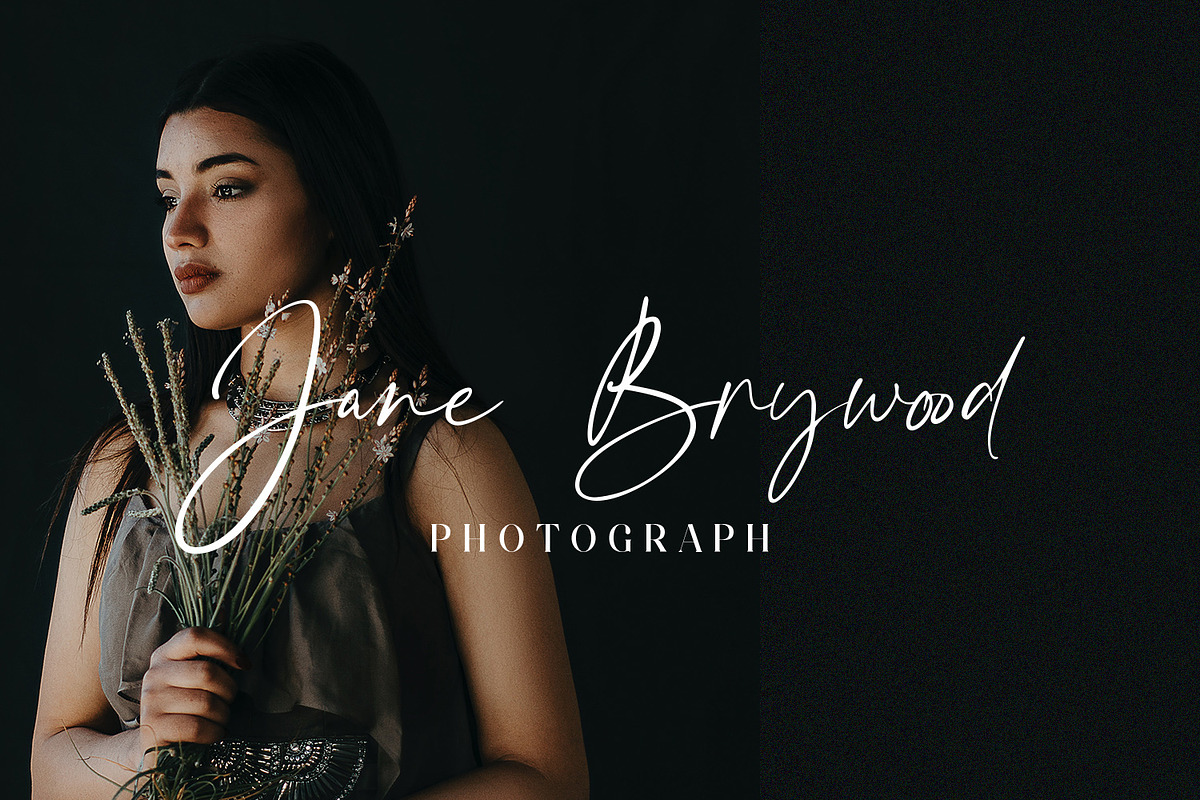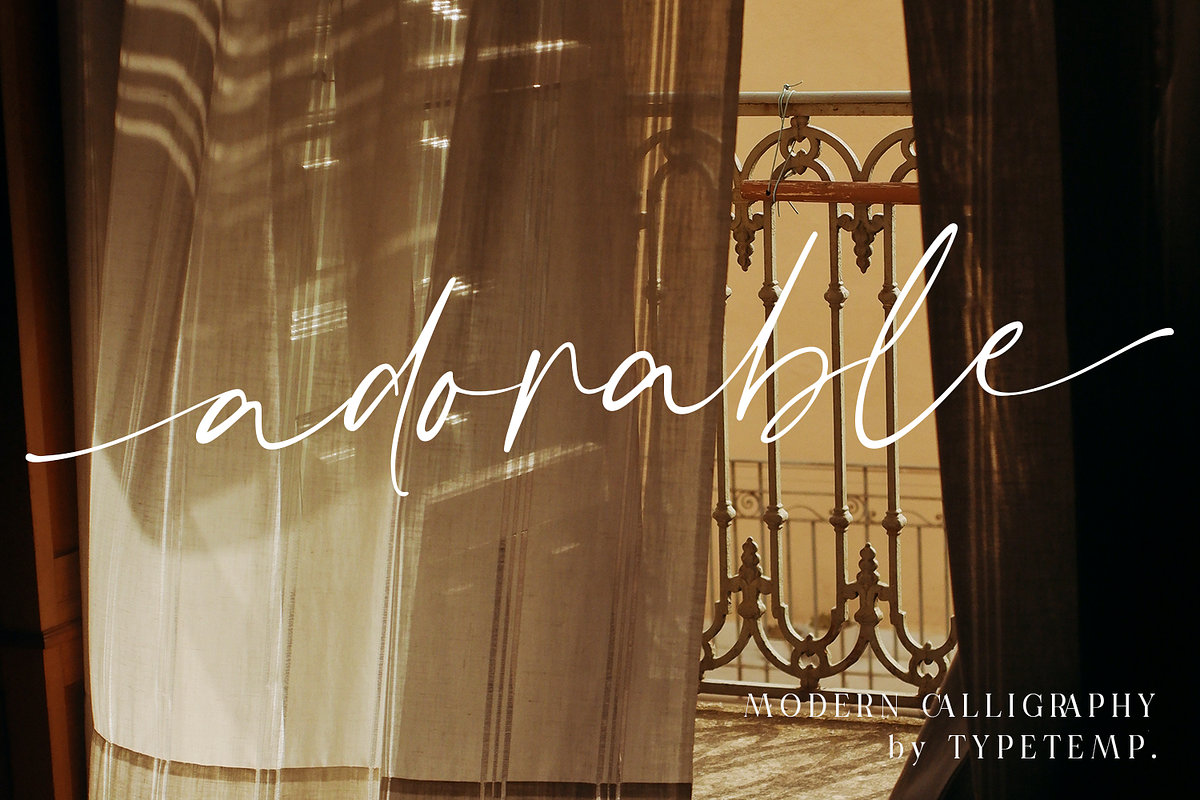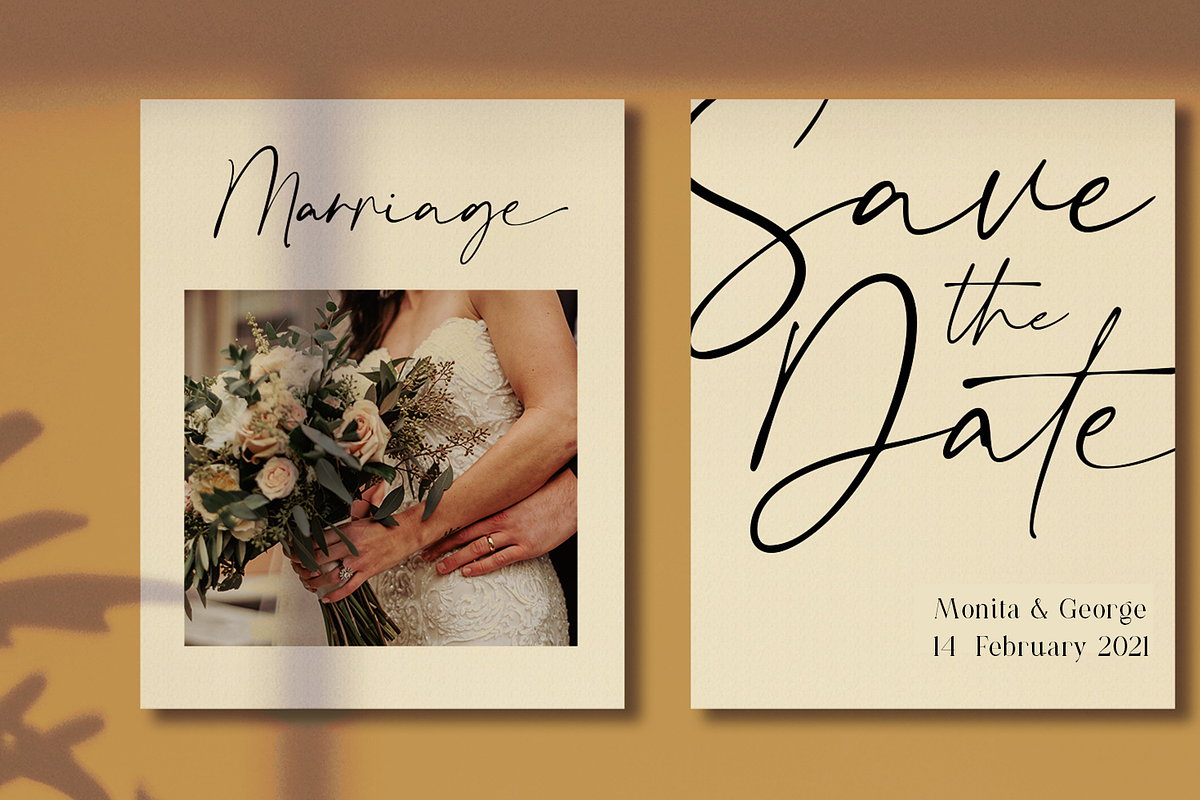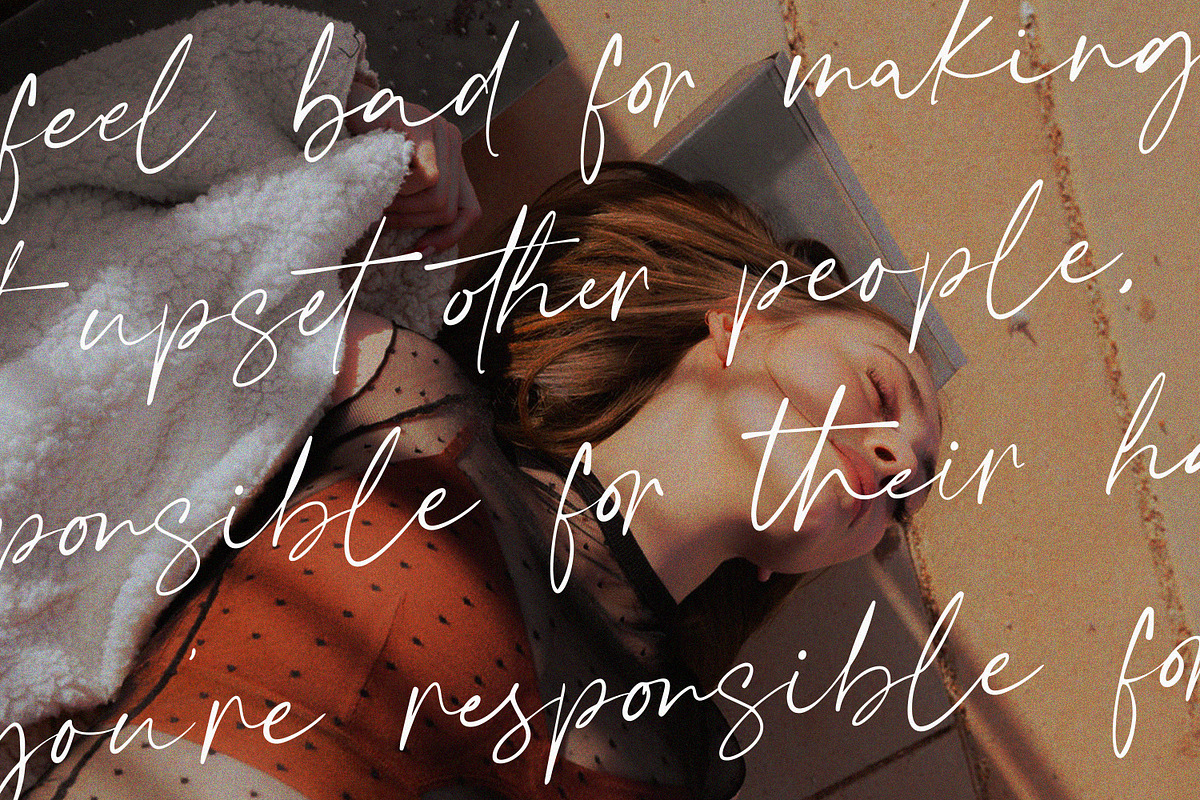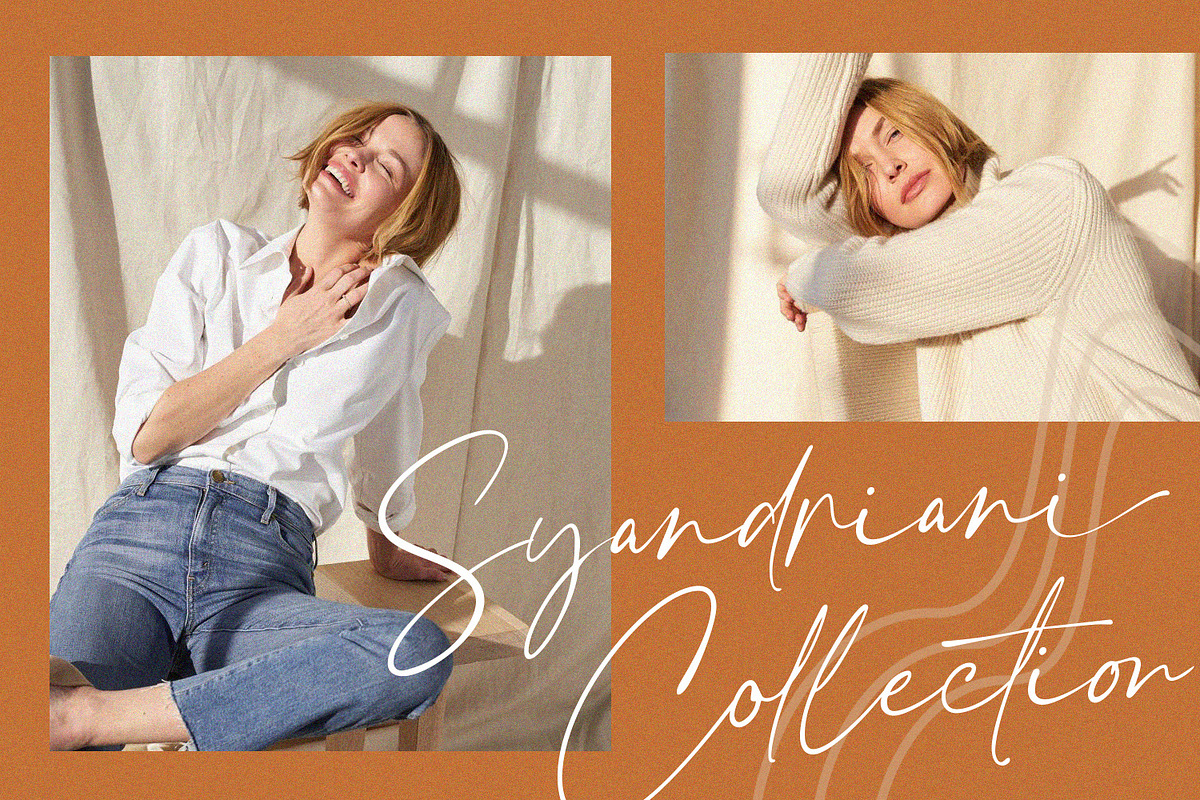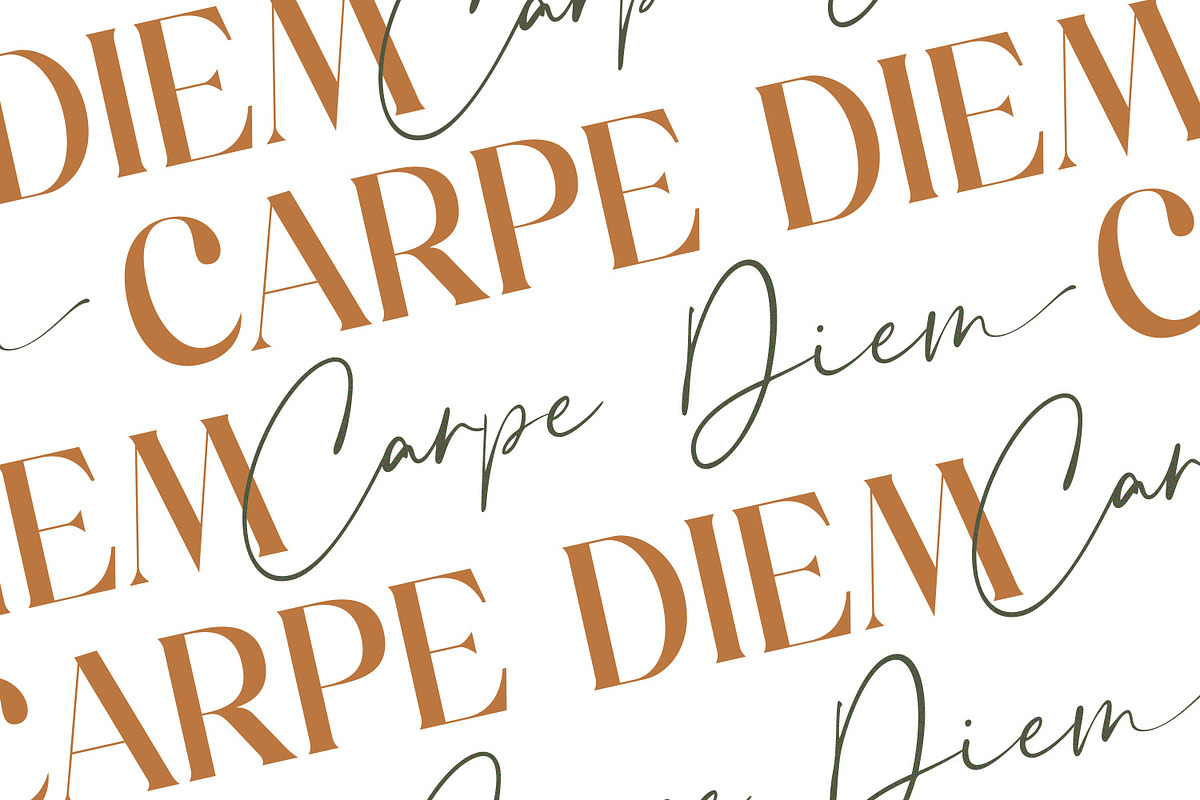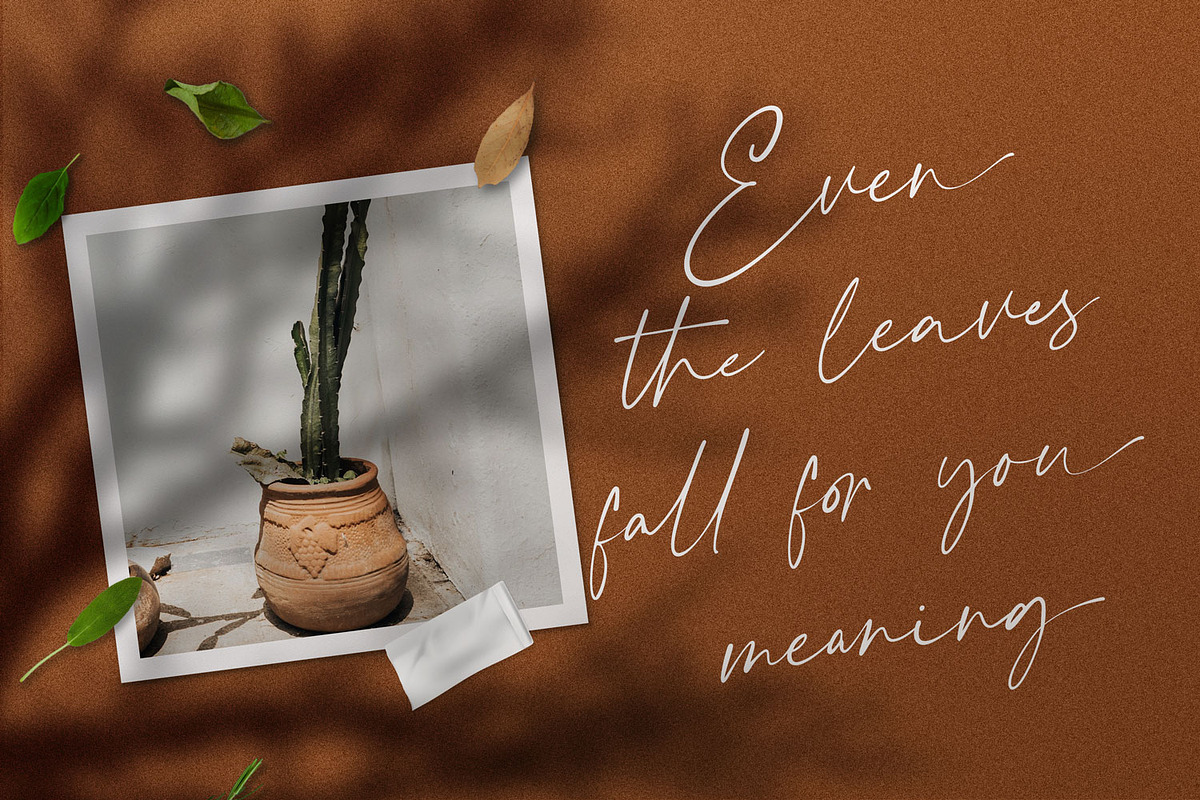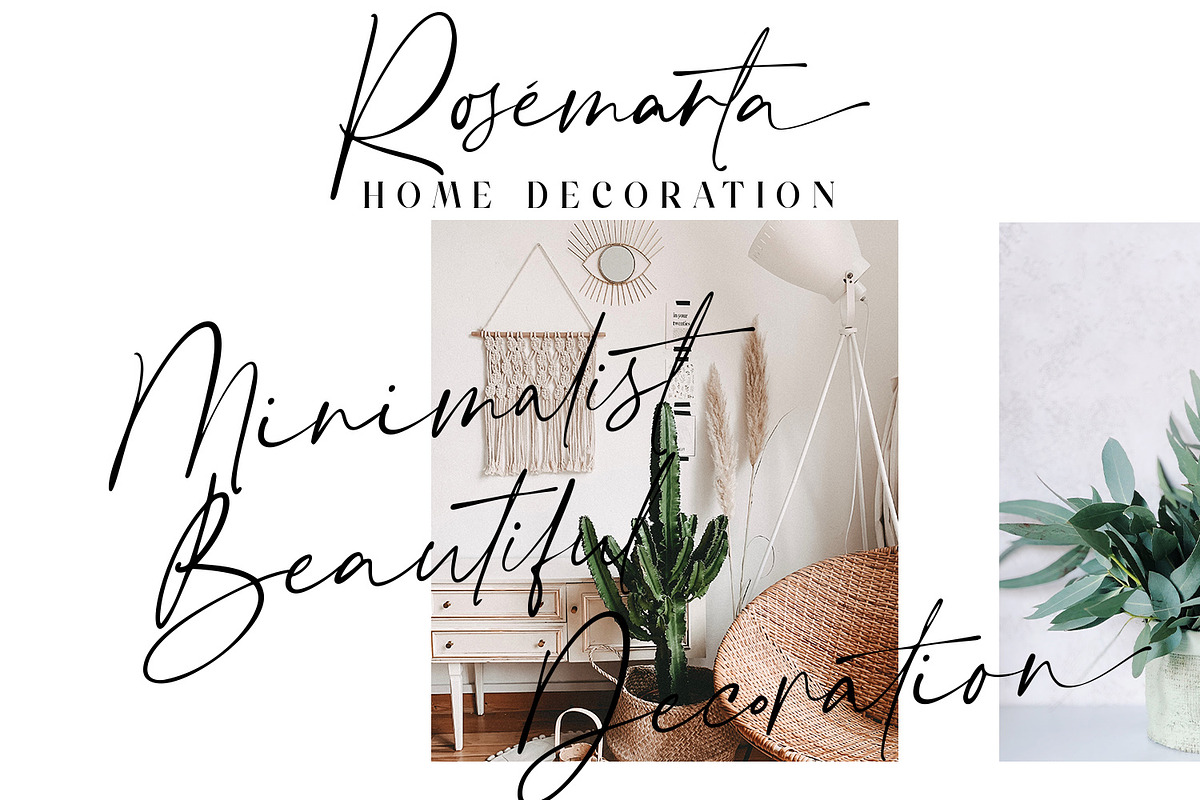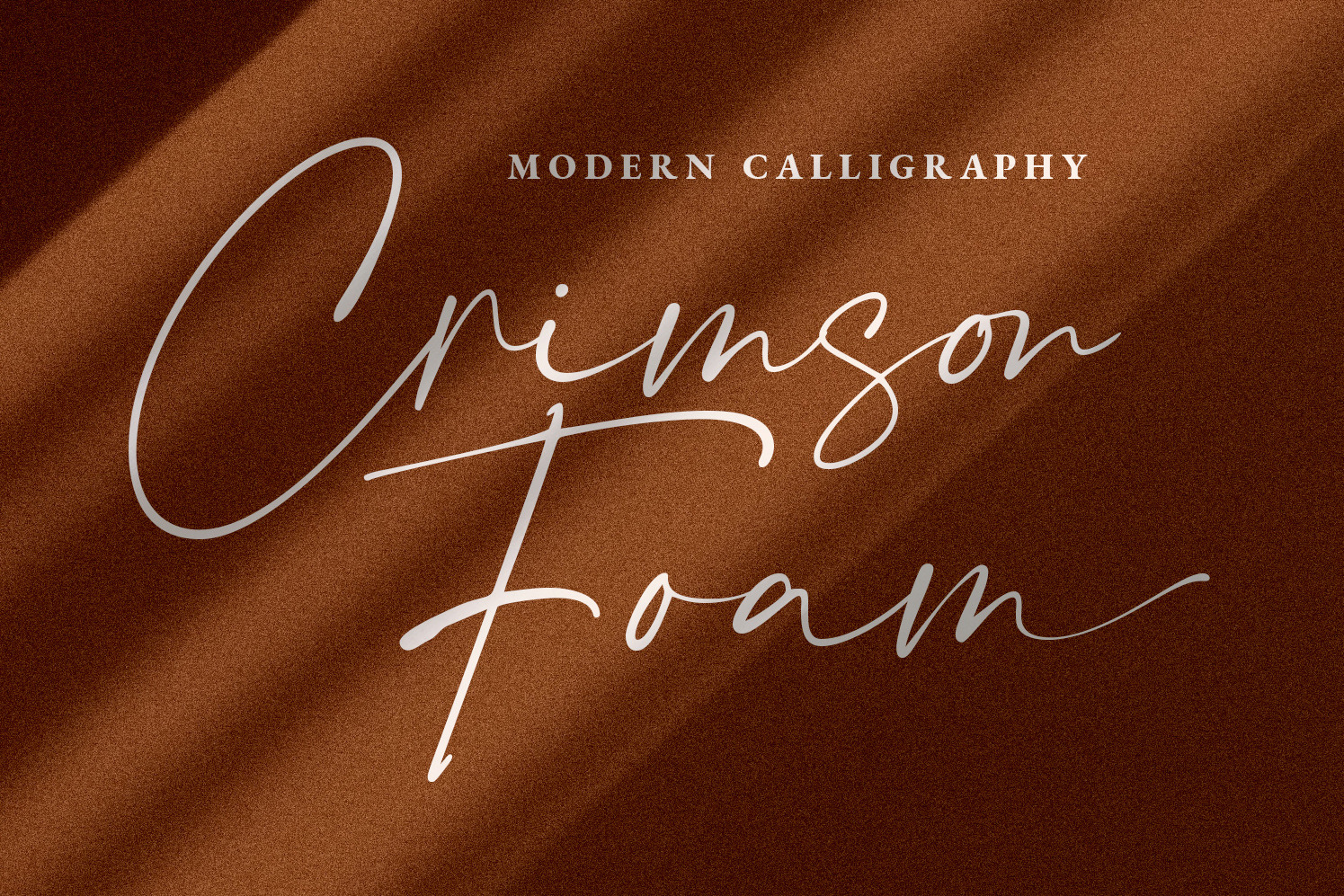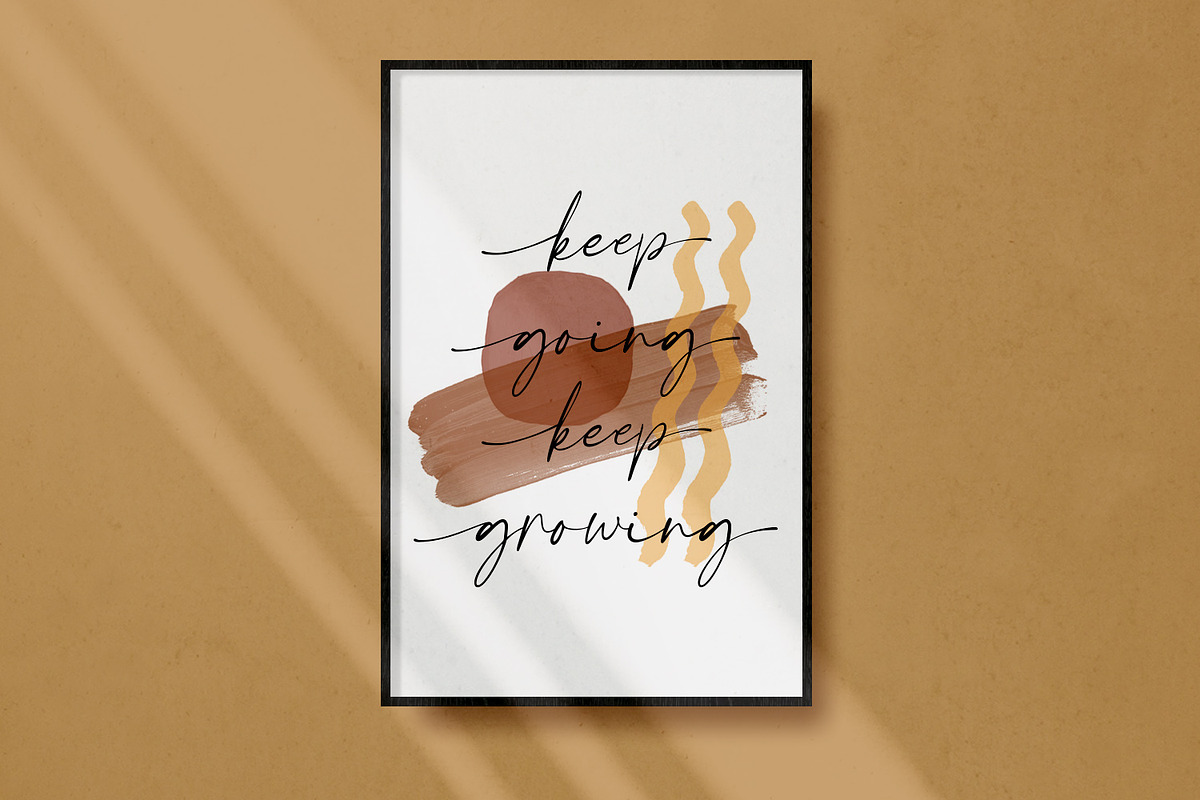
Crimson Foam Stylish Font
Crimson Foam is an adorable, chic, and visual elegance signature script font. Comes with alternatives, ligatures, multilingual suport. Perfect for editorial projects, branding, weddings, social media, product design, stationery, advertising other romantic projects or simply as a stylish text overlay to any background image.
- Stylistic Alternates & Ligatures
- Multilanguange